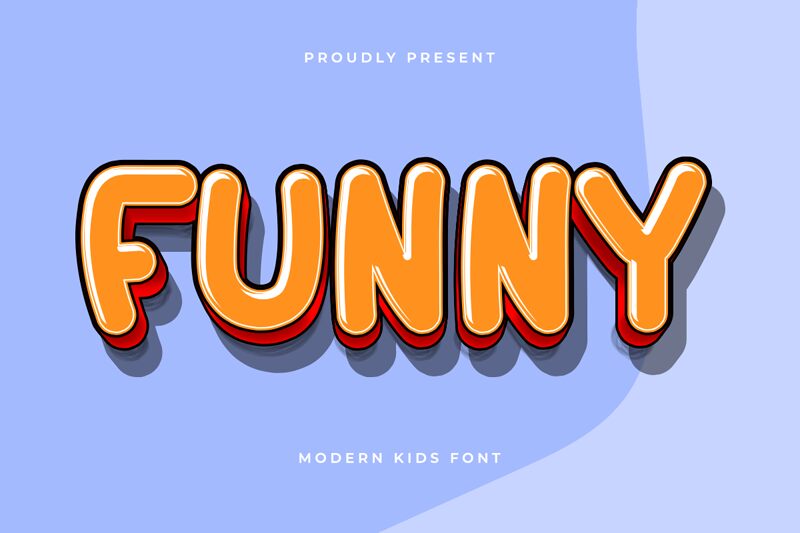
Funny, crafted by Kong Font, is a delightful display font that exudes a whimsical cartoon style. Its playful curves and bold presence make it an eye-catching choice for any design project. The font's rounded edges and exaggerated forms give it a friendly, approachable feel that is perfect for children's books, playful branding, or any creative endeavor seeking to convey fun and joy.
Whether you're designing logos, posters, or social media graphics, Funny's unique charm ensures your text stands out with personality. Its captivating style invites engagement and adds a touch of light-heartedness to your work. Dive into the world of creativity with Funny and let its characterful design bring your ideas to life in the most entertaining way possible.